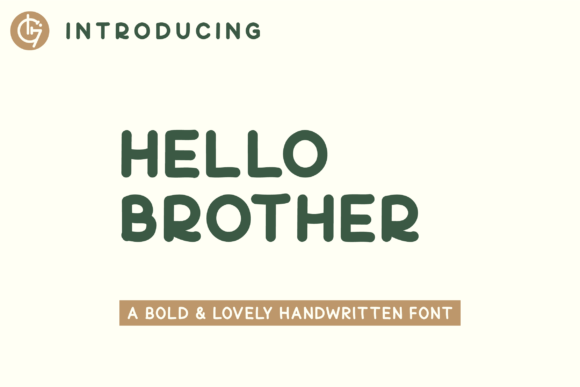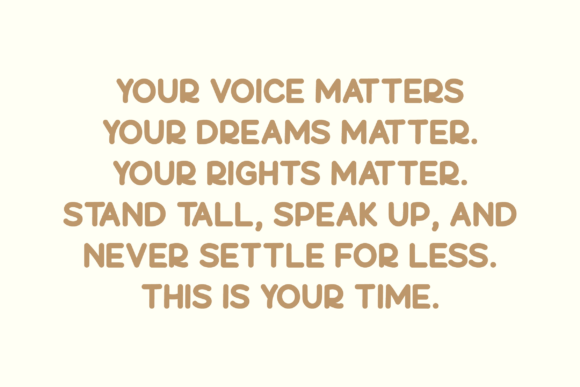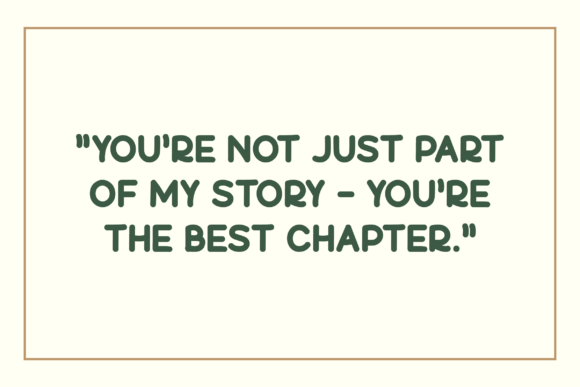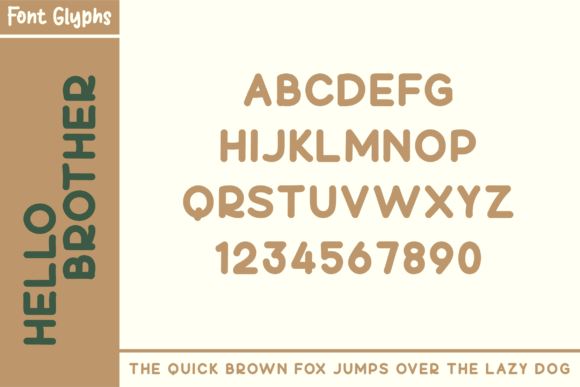
Hello Brother Font
About the Hello Brother Font
Elevate your designs with Hello Brother Font, a font that combines sophistication with readability. Make an impact with Hello Brother, a handwritten font that combines a strong, bold presence with a charming, personal touch. Ideal for branding, packaging, social media, and print, its unique style adds warmth and authenticity to any design. Achieve a professional yet approachable aesthetic with it.
Hello Brother excels in headlines, short impactful quotes, and logos where its bold, friendly personality shines. It works particularly well for brands targeting a younger demographic or those emphasizing approachability and authenticity. Avoid using it for extended body copy or UI elements; its handwritten nature reduces readability in smaller sizes or dense text blocks.
Pairing Hello Brother with a clean sans-serif like Open Sans for body text creates a balanced, modern feel. For a more playful aesthetic, consider pairing it with a rounded geometric sans-serif such as Futura. A classic serif like Garamond could also work well, providing a sophisticated counterpoint to Hello Brother’s casual energy.
The font’s overall personality is best described as bold, friendly, and approachable, lending itself to projects needing a touch of human warmth and approachability without sacrificing impact.